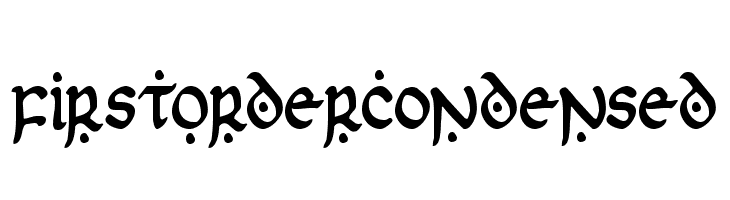
A playful, bold handwritten font with smooth, rounded characters.
( Fonts by Prioritype )
A playful, hand-drawn inline font with rounded, whimsical characters.
( Fonts by Prioritype )
A playful, dotted decorative font with bold, rounded characters.
( Fonts by Four Lines )
A bold, playful script font with a chunky, dynamic style.
( Fonts by Four Lines )
A bold, playful font with rounded edges and a hand-drawn look.
( Galactica Space Grid Font )